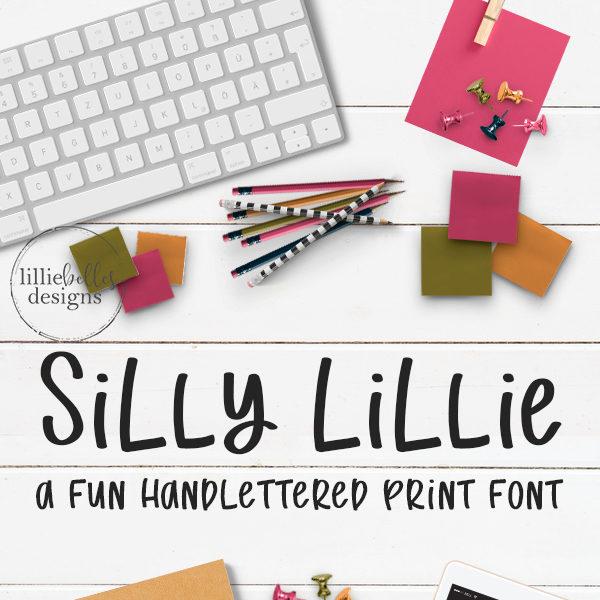
Silly Lillie Font
Silly Lillie - A fun hand lettered font
Silly Lillie is a fun font with lots of personality! Check out all of the listing images to see the full character list and examples.